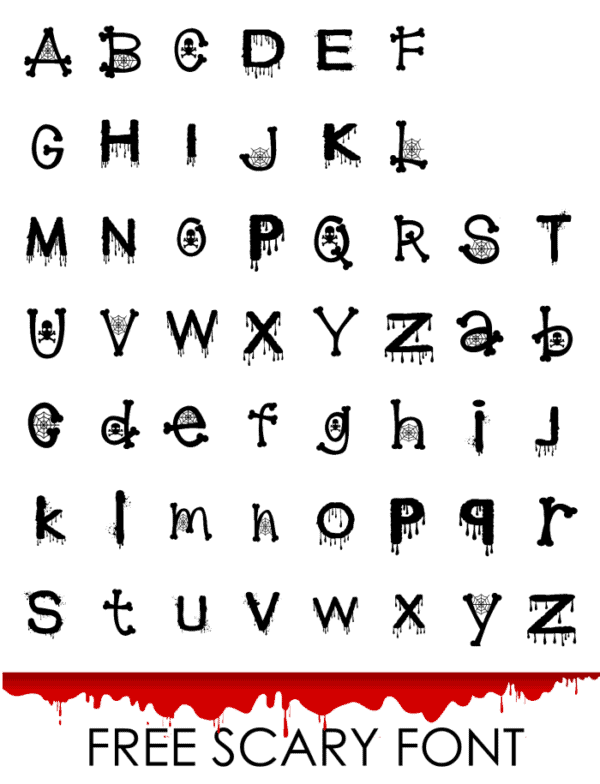
Halloween Font
With our free scary font generator, you can create creepy text in any color and any size.
3. Type your text. The text will automatically appear in a spooky font. The spooky font has uppercase and lowercase letters so each letter will be different with or without caps lock. If you don’t want to use creepy text for the entire text you can add text with a regular font. Click on “Add text”.
4. Change the font color if you prefer. For example, if you want the letter to look like it has blood dripping off it you can change the color to red.
What can the horror font generator be used for?
Use it to create Halloween invitations, flyers, or printables or whenever you want to create something spooky and need a spooky font.
Can you create cursed text together with regular text?
The cursed text generator can be used to create cursed text and regular text. For example, if you are creating an invitation for a scary action movie or something similar. You can use the cursed font to write the title. You then click on “add text” and add regular text for the details about the movie.